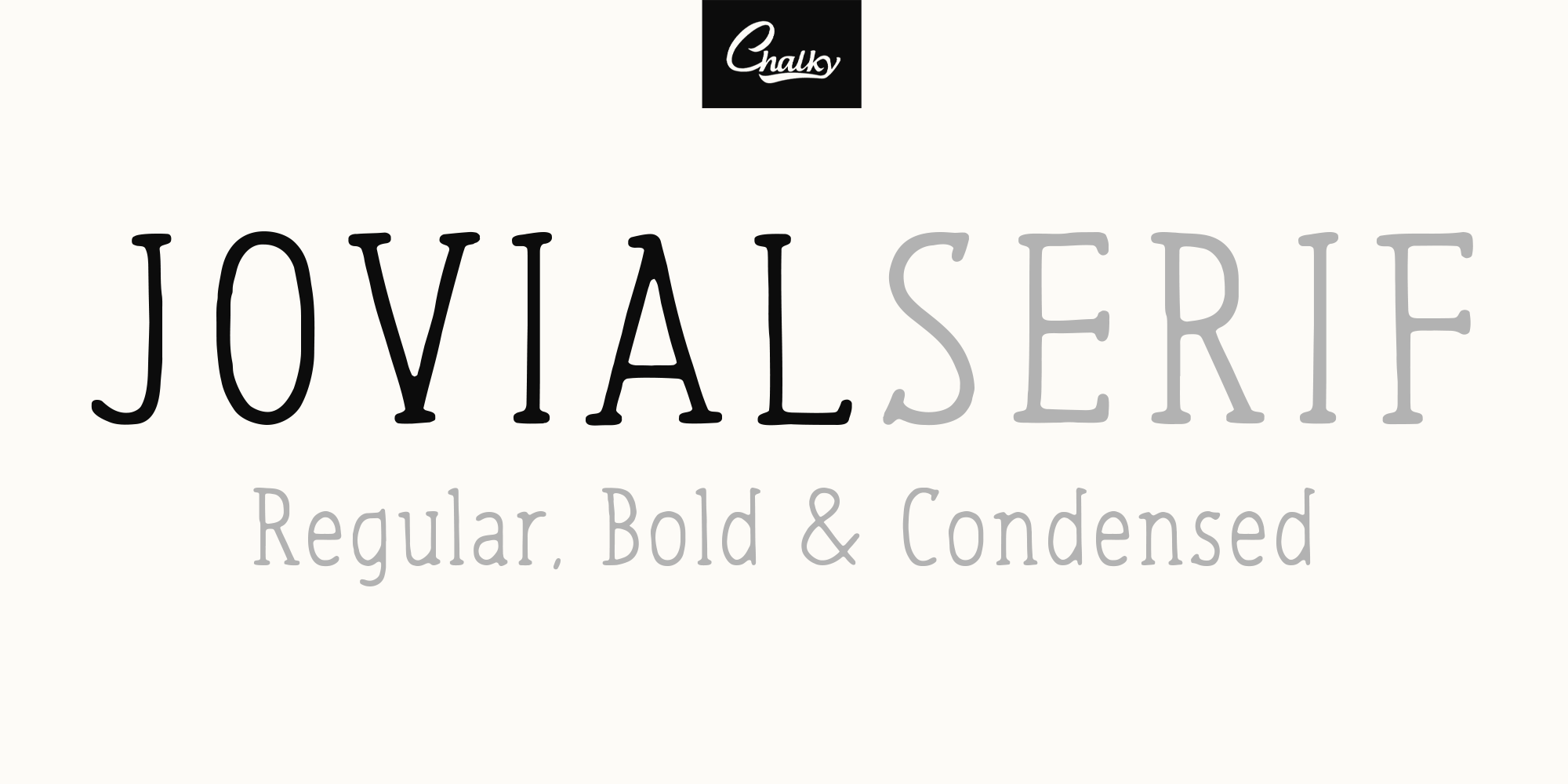
TC Jovial Pro Serif Font is perfect for cheerful brand communications, optimistic marketing campaigns, friendly business presentations, uplifting editorial designs, positive corporate identity, warm hospitality branding, joyful event materials, encouraging educational publications, welcoming service companies, happy lifestyle magazines, pleasant retail environments, and upbeat professional communications. This delightful typeface brings infectious optimism to projects requiring friendly professionalism and positive energy.
What makes TC Jovial Pro Serif Font so exciting is its remarkable ability to combine traditional serif elegance with genuine warmth and approachability through cheerfully crafted letterforms that radiate positive energy and friendly professionalism. The font features gracefully proportioned characters with welcoming curves and optimistic details that create an immediate sense of joy and trustworthiness while maintaining the scholarly authority of classic serif typography. Its jovial character conveys happiness and reliability while ensuring excellent readability, making it perfect for organizations seeking to communicate positive values, friendly service, and the uplifting spirit that builds strong relationships with authentic cheerful sophistication.
The TC Jovial Pro Serif Font family includes multiple cheerful weights and optimistic variations that showcase its positive character while providing comprehensive design flexibility for various friendly and professional applications. Each variant maintains the original's joyful spirit while offering extensive options for creating uplifting typographic compositions that celebrate positivity and professional warmth.
Whether you're developing friendly brand identities, creating positive marketing materials, or designing uplifting communications, TC Jovial Pro Serif Font Free Download offers the perfect combination of cheerful authenticity and professional functionality. This exceptional typeface brings genuine optimistic energy to design projects, making it an indispensable choice for designers seeking typography that effectively communicates happiness, professionalism, and the positive spirit that creates meaningful connections with authentic jovial elegance.